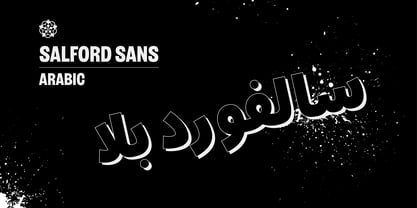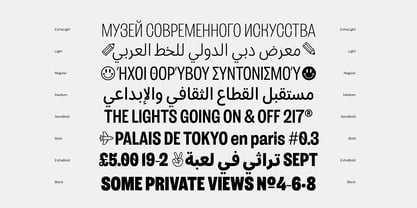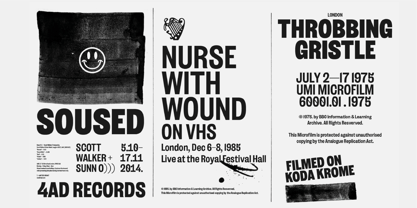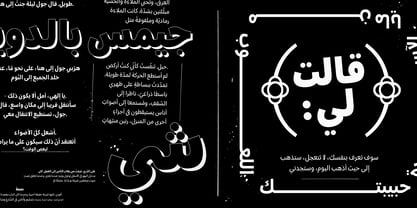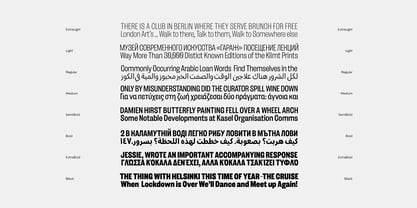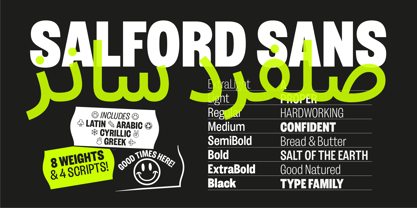
Salford Sans Arabic
by Manchester Type Foundry
The Salford Sans Arabic Font Family was designed by Lewis McGuffie, David Williams and published by Manchester Type Foundry. Salford Sans Arabic contains 8 styles and family package options. More about this family
Salford Sans Arabic has eight weights, and covers four scripts – extended Latin, monotonic Greek, Arabic & Cyrillic – and is made for the kind of headlines, editorial and display work which need to be serious, international and communicative but retain a touch of stylish, hand-made personality. Packed with symbols, tidy features, a variable slant axis and a range of local language features, Salford Sans is based on the traditional British style condensed sans serif. It's a robust, functional and elegant condensed sans – an update on a classic idea that works well the world over. Slanted styles are available in the non-Arabic version - Salford Sans.
Designers: Lewis McGuffie, David Williams
Foundry: Manchester Type Foundry